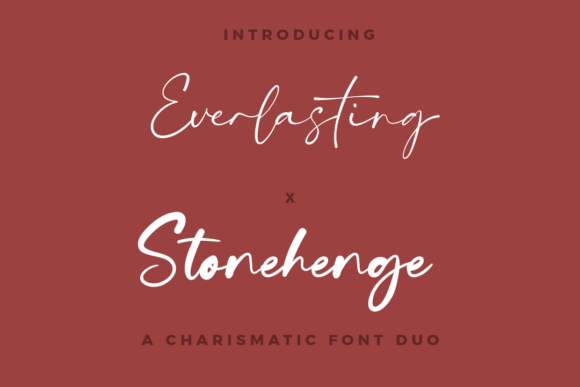
Introducing Everlasting X Stonehenge Font: A Timeless Union of Elegance and Sophistication
Immerse yourself in the classical elegance of Everlasting and Stonehenge – a delightful pair of cursive handwritten fonts that will transport you to a world of refined beauty and creative expression. Crafted with intricate attention to detail, this dynamic duo delivers a seamless blend of timeless charm and contemporary sophistication, making them the perfect addition to any design project.
The Essence of Hand-Drawn Calligraphy
Everlasting and Stonehenge embody the fluidity and spontaneity of hand-drawn calligraphy, bringing a touch of human warmth and personality to your designs. These fonts are meticulously crafted to mimic the natural flow and movement of handwritten script, with subtle variations in line width, texture, and letterforms that evoke a sense of authenticity and craftsmanship.
Whether you’re a designer, crafter, or simply a creative enthusiast, Everlasting and Stonehenge offer the perfect tools to unleash your imagination and bring your ideas to life. From elegant wedding invitations and sophisticated business cards to eye-catching posters and captivating social media graphics, these fonts are versatile and adaptable, ensuring that your message is conveyed with style and sophistication.
A Perfect Harmony of Tradition and Innovation
What sets Everlasting and Stonehenge apart is their unique blend of traditional and modern elements. While rooted in classic calligraphic techniques, these fonts also incorporate subtle modern touches that ensure they remain fresh and relevant in today’s fast-paced design landscape.
This harmonious union of old and new makes Everlasting and Stonehenge an excellent choice for designers and crafters seeking to create works that are both nostalgic and forward-thinking. Whether you’re looking to evoke a sense of heritage and tradition or push the boundaries of modern design, these fonts provide the perfect foundation for your creative endeavors.
Key Features of Everlasting X Stonehenge Font
- Cursive Handwritten Style: Everlasting and Stonehenge boast a beautiful, flowing script that adds a touch of elegance and sophistication to any design.
- Intricate Attention to Detail: These fonts are crafted with meticulous attention to detail, ensuring that every letterform, stroke, and flourish is of the highest quality.
- Timeless Charm and Contemporary Sophistication: Everlasting and Stonehenge seamlessly blend classic charm with modern flair, making them suitable for a wide range of design applications.
- Subtle Modern Touches: These fonts incorporate subtle modern elements that ensure they remain fresh and relevant in today’s design landscape.
- Versatility and Adaptability: Everlasting and Stonehenge are highly versatile and can be used for a variety of design projects, from print materials to digital applications.
Inspiration and Creative Possibilities
With Everlasting and Stonehenge, the creative possibilities are endless. Imagine crafting:
- Elegant wedding invitations and stationery that set the tone for a sophisticated and memorable celebration.
- Sophisticated business cards and branding materials that convey professionalism and style.
- Eye-catching posters and flyers that grab attention and leave a lasting impression.
- Captivating social media graphics that elevate your online presence and engage your audience.
- Beautiful journals and planners that inspire creativity and productivity.
Everlasting and Stonehenge are more than just fonts – they’re a gateway to a world of creative expression and refined beauty. With their timeless charm, contemporary sophistication, and versatility, these fonts are sure to become an essential part of your design toolkit.
Whether you’re a seasoned designer or a creative enthusiast, we invite you to explore the possibilities of Everlasting and Stonehenge. Unleash your imagination, experiment with these incredible fonts, and discover the perfect harmony of tradition and innovation in type styling.